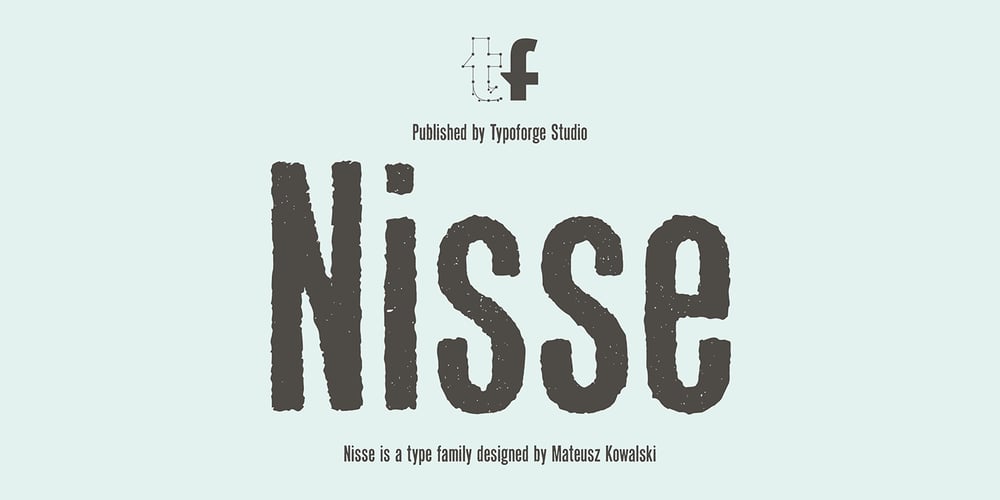
Nisse
Nisse font
Nisse Font Family was designed by Mateusz Kowalski and published by Typoforge Studio. Nisse contains 4 styles and family package options. Say hello to a new Typoforge member! Nisse is a display font family that consists of 4 styles (including italics). The regular and rough versions differ in the amount of wear. It’s inspired by Rex typeface first published by „The Jan Idzikowski and Co. Foundry“ in 1930. Nisse has a high amount of detail making it ideal for large prints and poster design. It is specified by a huge amount of automatic alternates. Each basic latin letter has five versions, the numbers have thee versions and extended latin letters have two versions.